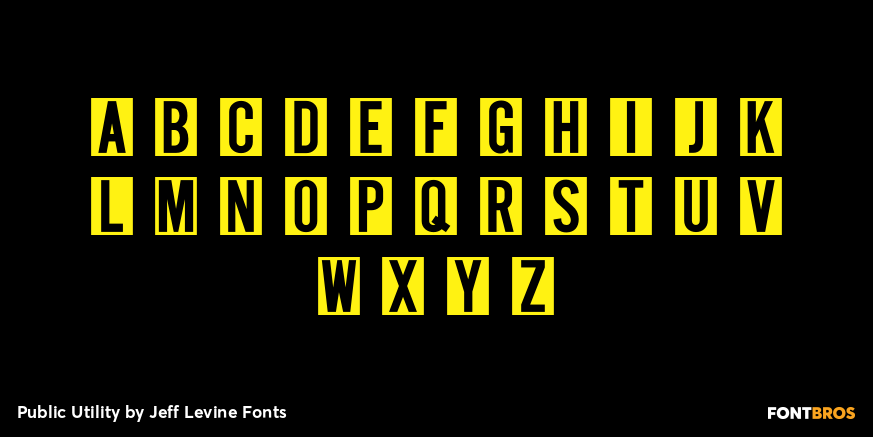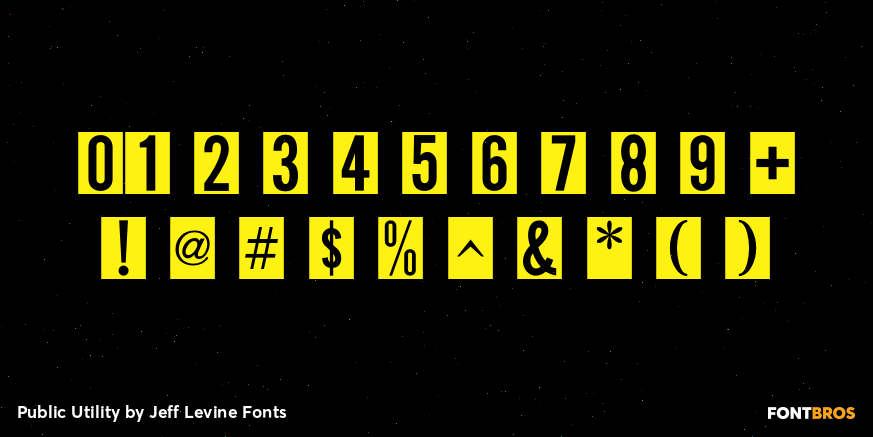
Public Utility
Public Utility JNL digitally duplicates the look of those small white-on-black self-adhesive stickers used by cities, power companies and telecommunication firms in order to identify utility poles and other service locations.
A blank rectangle is available on both the solid and broken vertical bar positions.